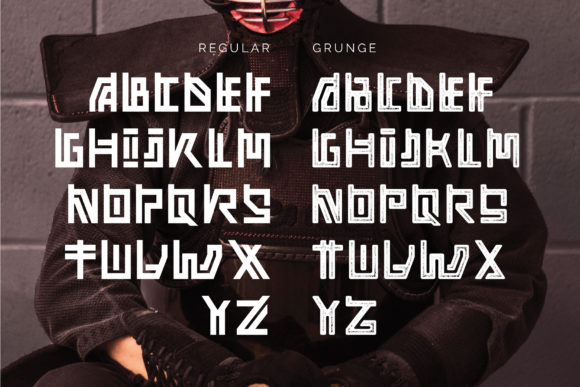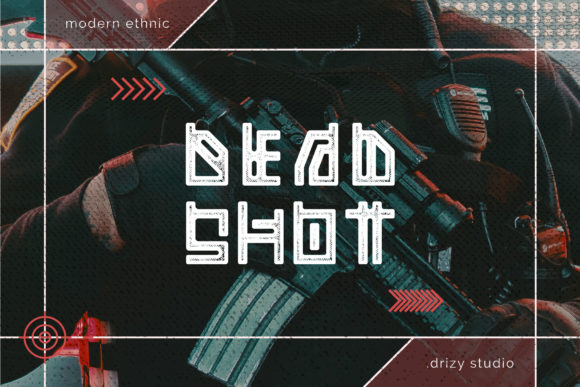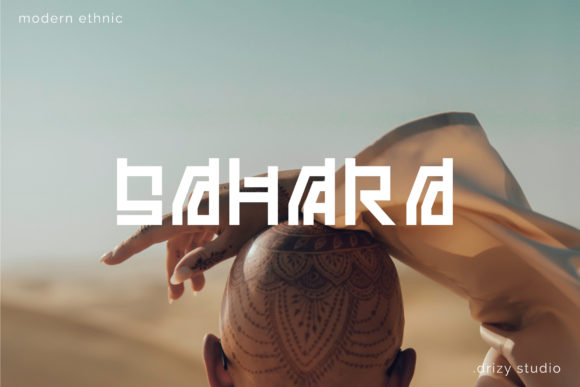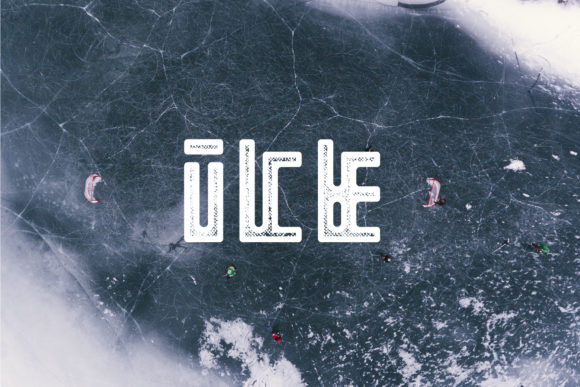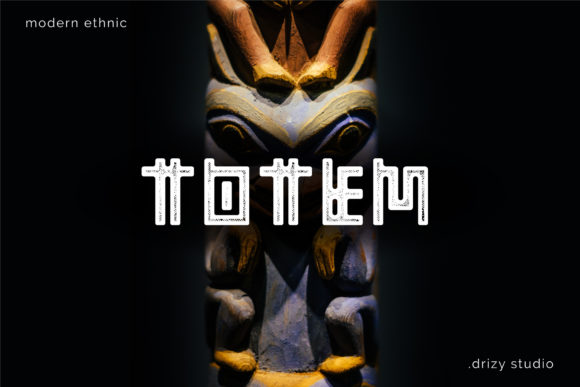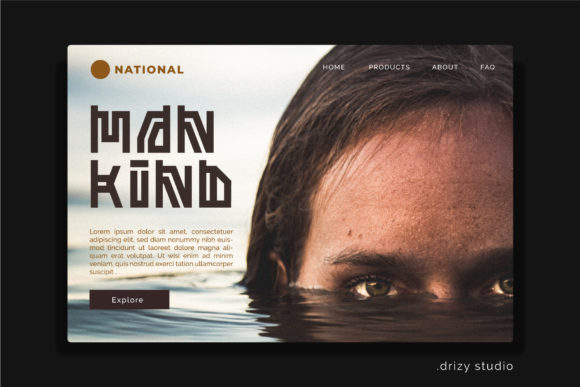
Introducing Adine Font: The Bold and Tribal Typeface for Adventurous Designs
Are you a designer or crafter looking for a font that can add a touch of adventure and boldness to your design projects? Look no further than Adine Font. This contemporary typeface is perfect for those who want to make a statement with their designs. In this article, we’ll take a closer look at Adine Font, its features, and how you can use it to elevate your designs.
What is Adine Font?
Adine Font is a bold and tribal font that is designed to give your designs a contemporary feel. Its unique and edgy style makes it perfect for designers who want to add a touch of adventure and excitement to their work. Whether you’re working on a branding project, a poster, or a website, Adine Font is sure to make a statement.
Key Features of Adine Font
So, what makes Adine Font so special? Here are some of its key features:
- Bold and Tribal Style: Adine Font has a bold and tribal style that is perfect for designs that require a touch of adventure and excitement.
- Contemporary Feel: The font has a contemporary feel that makes it perfect for modern designs.
- Unique and Edgy: Adine Font has a unique and edgy style that sets it apart from other fonts.
- Versatile: The font is versatile and can be used for a variety of design projects, from branding to posters to websites.
How to Use Adine Font in Your Designs
Adine Font is easy to use and can be incorporated into your designs in a variety of ways. Here are some tips:
- Use it as a Headline Font: Adine Font is perfect for headlines and titles. Use it to grab attention and make a statement.
- Pair it with Other Fonts: Adine Font can be paired with other fonts to create a unique and interesting contrast.
- Experiment with Colors: The font looks great in bold colors, so don’t be afraid to experiment with different colors and gradients.
- Use it for Branding: Adine Font is perfect for branding projects, such as logos and business cards.
Benefits of Using Adine Font
So, why should you use Adine Font in your designs? Here are some benefits:
- Adds a Touch of Adventure: Adine Font adds a touch of adventure and excitement to your designs.
- Stand Out from the Crowd: The font’s unique and edgy style helps your designs stand out from the crowd.
- Perfect for Modern Designs: Adine Font is perfect for modern designs and is sure to give your work a contemporary feel.
- Easy to Read: Despite its bold style, Adine Font is easy to read and can be used for body text as well as headlines.
In conclusion, Adine Font is a bold and tribal font that is perfect for designers and crafters who want to add a touch of adventure and excitement to their designs. Its unique and edgy style makes it perfect for modern designs, and its versatility makes it suitable for a variety of design projects. Whether you’re working on a branding project, a poster, or a website, Adine Font is sure to make a statement.